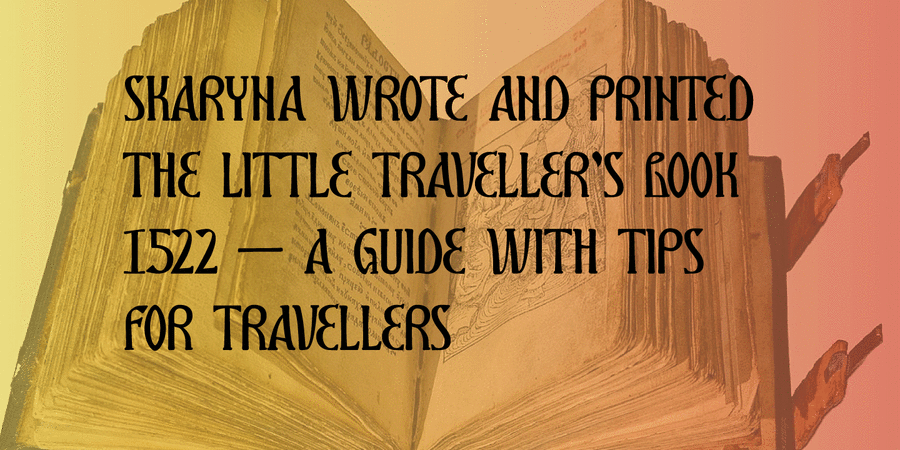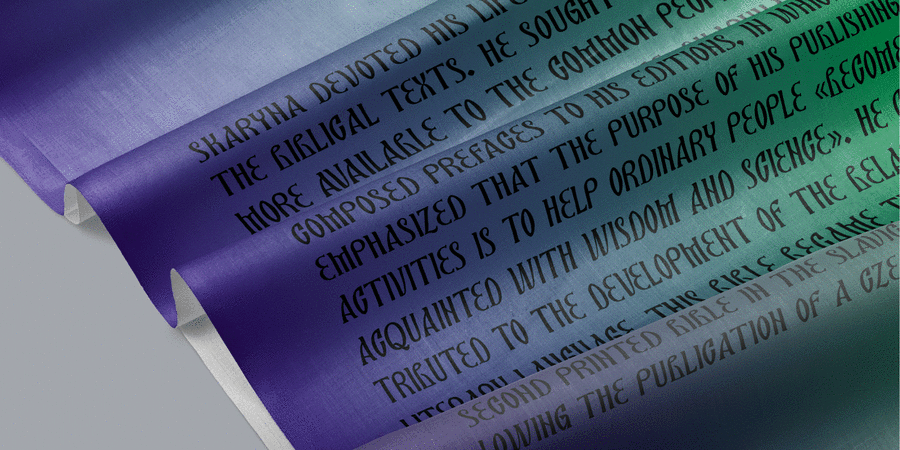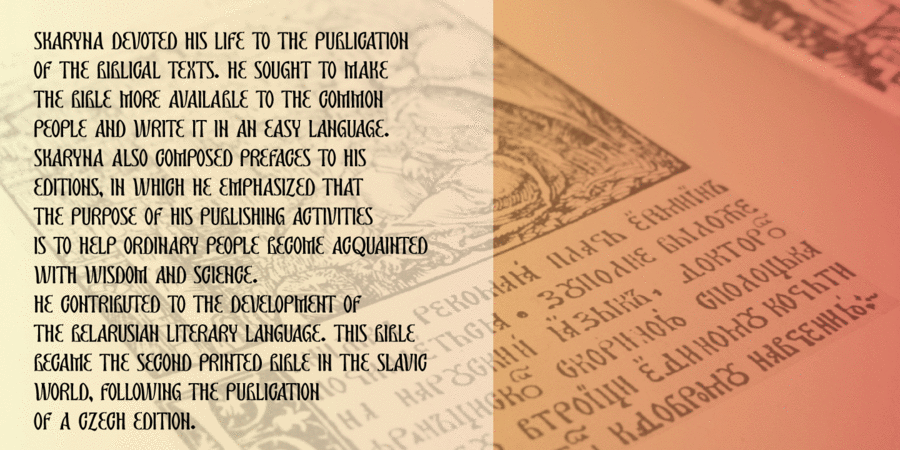
Skaryna 2017 Title is a revival of the original typeface designed and cut by Francisk Skaryna in 1517–1519. Skaryna 2017 Title is designed to celebrate the 500th anniversary of the original work by Francisk Skaryna (lat. Franciscus Scorina de Poloczko) — scientist and educator from Polotsk (current Belarus). The original designs contain only Cyrillic characters. So Latin and additional characters were added to make the legacy of Francisk available for the World. The revival was designed to stay close to the original and remain a little bit inaccurate as early Renaissance printing technologies were. This project was sponsored by Anton Bryl. The typeface designed by Aliaksei Koval in 2020.
hempen, homespun, religious, church, orthodox christian, tall, biblical, Christian, picturesque, rustic, man-made, handicraft, home-made, craft brewed, conservative, Artisanal, historical, original, distinctive, ethnic, natural, traditional, ancient, artistic, dynamic, plastic, alive, organic, tribal, fairy, expressive, golden, nostalgic, old-fashioned, flexible, sacral